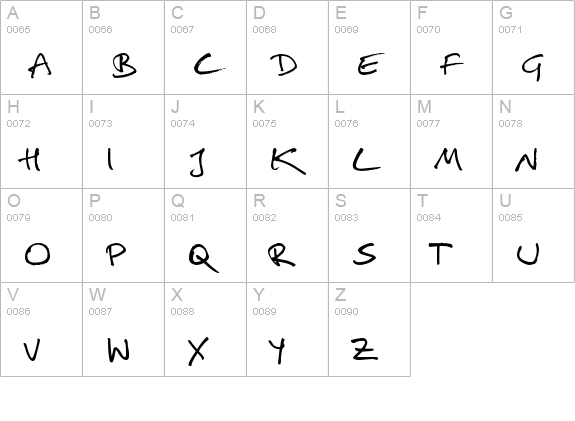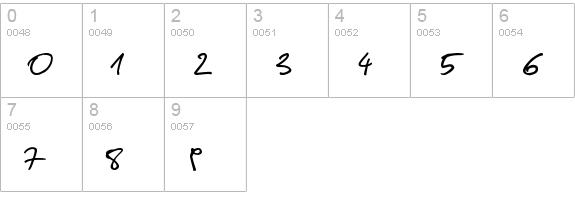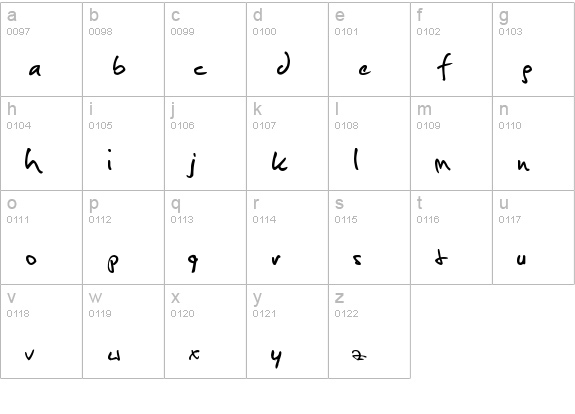
Christopherhand font is a stylish and elegant typeface that exudes sophistication and charm. With its smooth lines and flowing curves, this font is perfect for adding a touch of class to any design project. Whether you're creating invitations, greeting cards, or branding materials, Christopherhand font will give your work a polished and professional look. What's even better is that Christopherhand font is available for free download at FontsMarket.com. This means you can easily access this beautiful font and use it in your projects without any cost. Don't miss out on this opportunity to enhance your designs with the timeless appeal of Christopherhand font. Download it today and elevate your work to the next level.